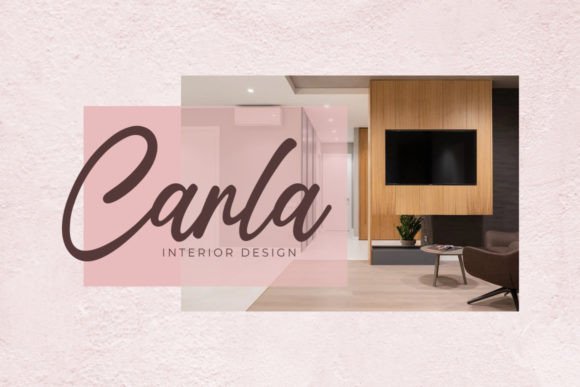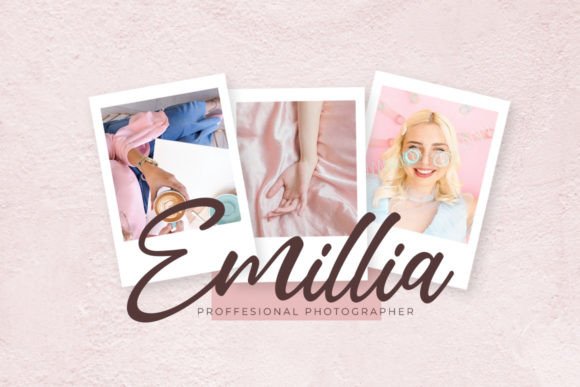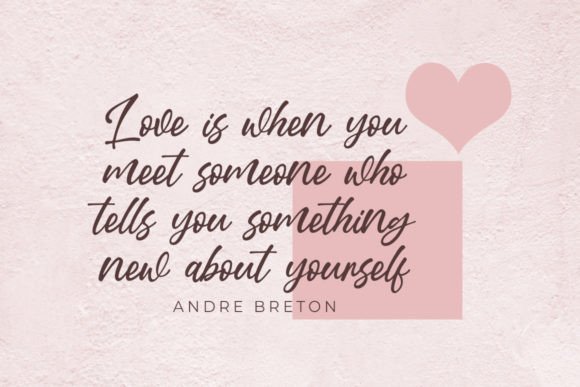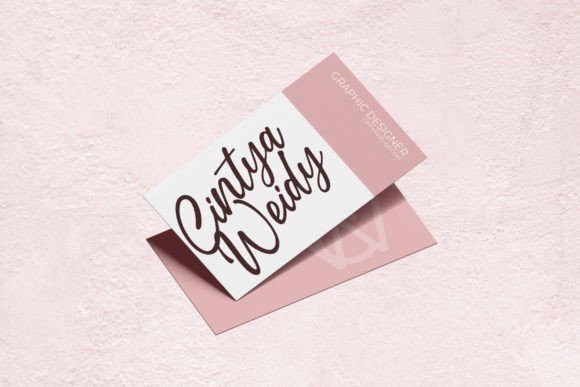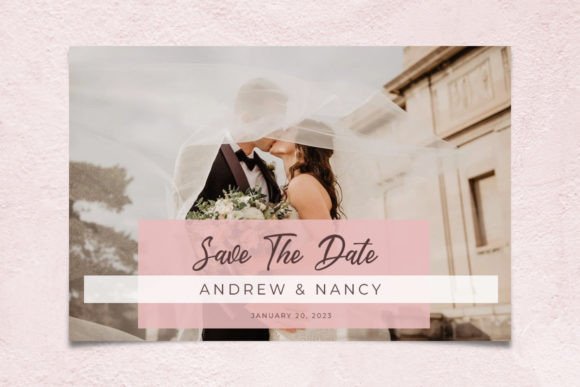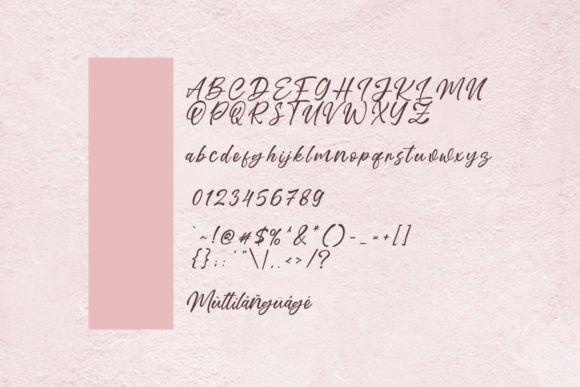
The Dalovet Font: A Modern Script for Creative Designs
Have you ever been in the middle of a design project, and suddenly, you realize that the font you’ve chosen just isn’t working? I recall a particularly frustrating experience while working on a poster design for a local event. The font I had initially selected was too bland, and I needed something that would capture the elegance and sophistication of the event. That’s when I stumbled upon the Dalovet font, a modern and elegant script font that perfectly suited my design needs.
A Personal Review of Dalovet Font
As a designer, I’m always on the lookout for fonts that can elevate my designs and make them more visually appealing. Here’s what I love about Dalovet:
- ✨ Elegant and Modern Design: Dalovet boasts a sleek and contemporary design that instantly adds a touch of sophistication to any project.
- ✅ Versatile: This font is perfect for a wide range of design applications, including posters, logos, magazines, book covers, banners, and more.
- ✨ Easy to Read: Despite its elegant design, Dalovet remains highly legible, making it an excellent choice for both headings and body text.
While Dalovet is an excellent font, it’s not without its quirks:
- ⚠️ Limited Use in Small Sizes: Like many script fonts, Dalovet can appear a bit blurry or lose its elegance when used in very small sizes.
- 🤔 Requires Attention to Kerning: Some users might find that the kerning (the space between characters) requires a bit of manual adjustment to achieve optimal results.
In Adobe applications, you can take full advantage of Dalovet’s OpenType features, glyphs, and stylistic alternates to create unique and customized designs.
While Word might not offer as many advanced typographic features as design software, Dalovet still shines as a beautiful and readable font.
The Story Behind Dalovet Font
While the origins of the Dalovet font are not well-documented, it’s clear that the designer aimed to create a modern and elegant script font that would meet the needs of contemporary designers. The result is a versatile font that can be used in a wide range of design applications.
Q: What type of designs is the Dalovet font best suited for?
A: Dalovet is perfect for posters, logos, magazines, book covers, banners, and any design that requires an elegant and modern script font.
Q: Does the Dalovet font support OpenType features?
A: Yes, Dalovet supports OpenType features, including glyphs and stylistic alternates, allowing for a high degree of customization in compatible software.
Q: Is the Dalovet font suitable for body text?
A: While Dalovet is primarily designed for headings and titles, it can be used for body text in larger sizes. However, for smaller sizes, a more traditional serif or sans-serif font might be more readable.